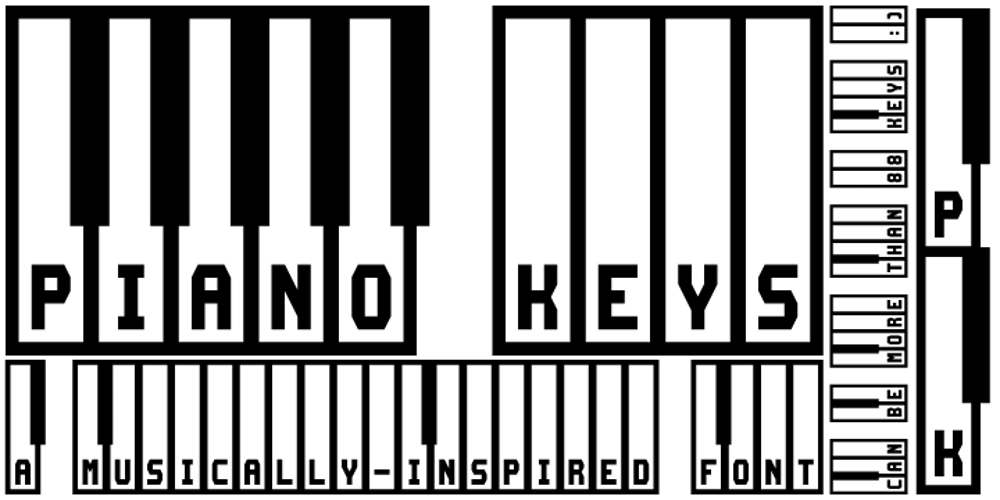
Piano Keys Font Family was designed by Wilson Thomas and published by Funk King. Piano Keys contains 1 styles and family package options. Piano Keys is a musically-inspired font. It can be used for commercial as well as educational projects. In other versions, I tried to accurately replicate the pattern of black and white keys across the character set. Of course when used, the randomness of text and characters often produced less than realistic results when needed. This version allows black and white keys to be accurately arranged, if desired.